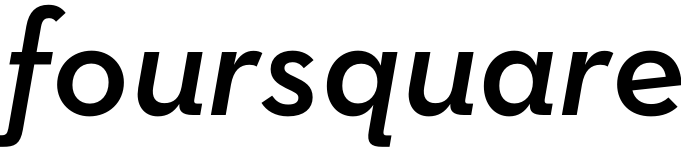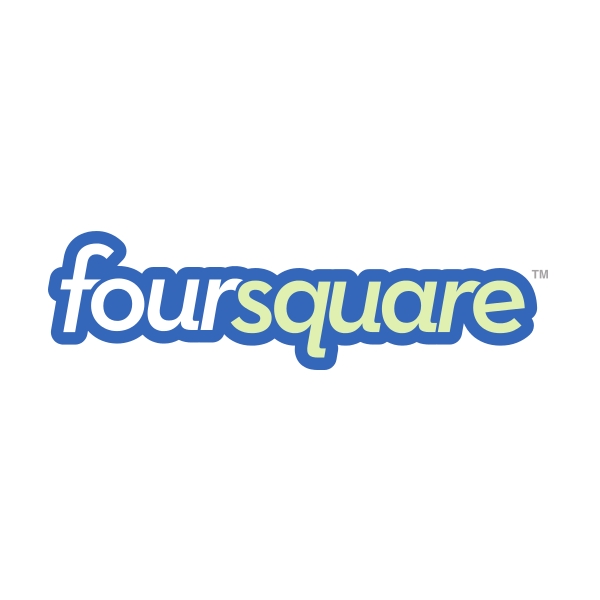
Foursquare Font
Fonts in UseFoursquare is a location-based social networking platform that allows users to share their location with friends and discover new places to visit. It uses a system of check-ins, reviews, and recommendations to provide personalized recommendations for restaurants, bars, and other local businesses.
It is likely that the Foursquare logo was created using Neutra Text Demi Italic, a geometric sans serif typeface designed by Christian Schwartz. Neutra Text is based on the principles of architecture and design by Richard Neutra.